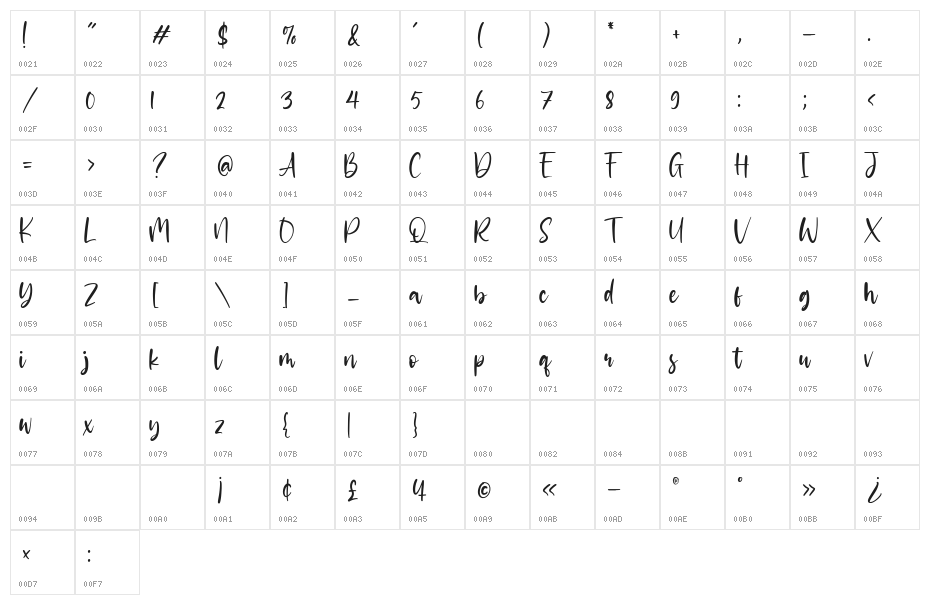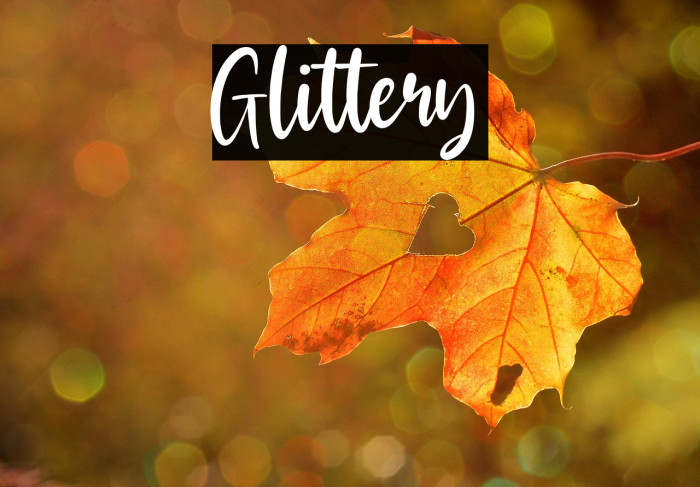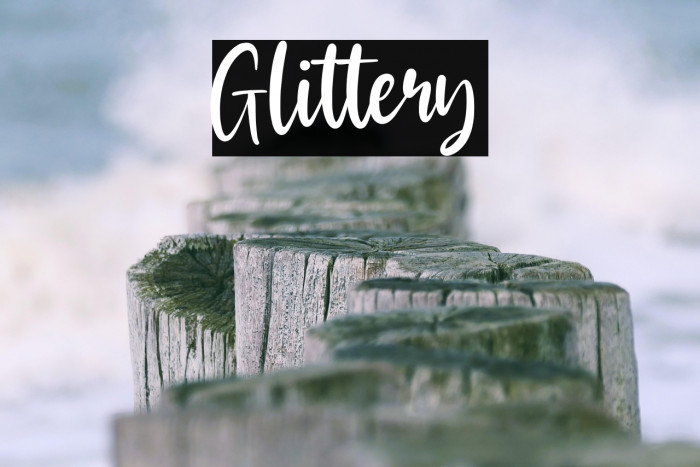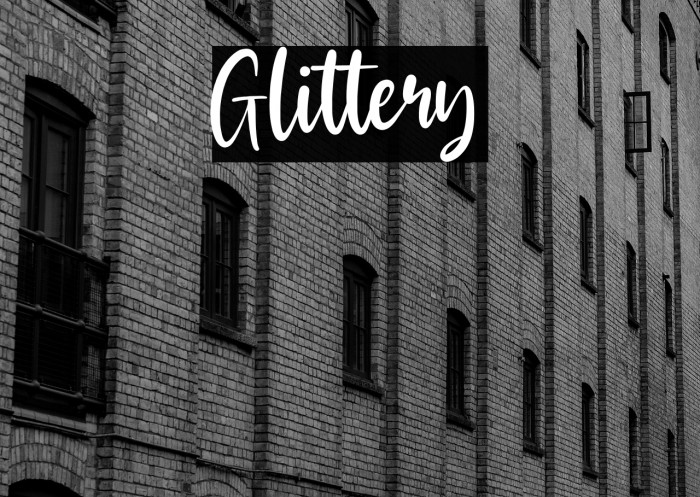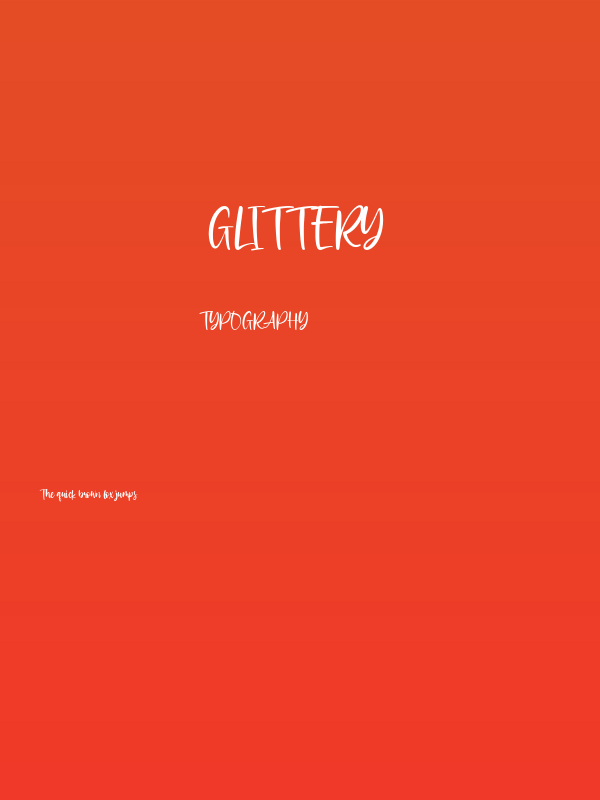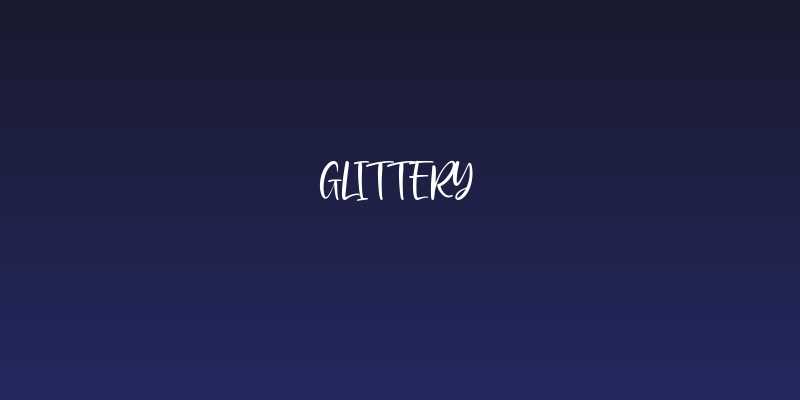
Glittery Font
Glittery Description
This font features a playful and energetic script style, characterized by its fluid and dynamic strokes. The uppercase letters are bold and slightly slanted, giving a sense of movement and flair. The lowercase letters maintain a consistent flow, with some characters featuring unique loops and curls that add to the overall whimsical appearance. Numbers and special characters are designed to complement the alphabet, maintaining the same lively and informal style. This font is perfect for projects that require a touch of personality and creativity.
| Proposed Projects | Ideal for greeting cards, invitations, branding, social media graphics, and any project needing a personal touch. |